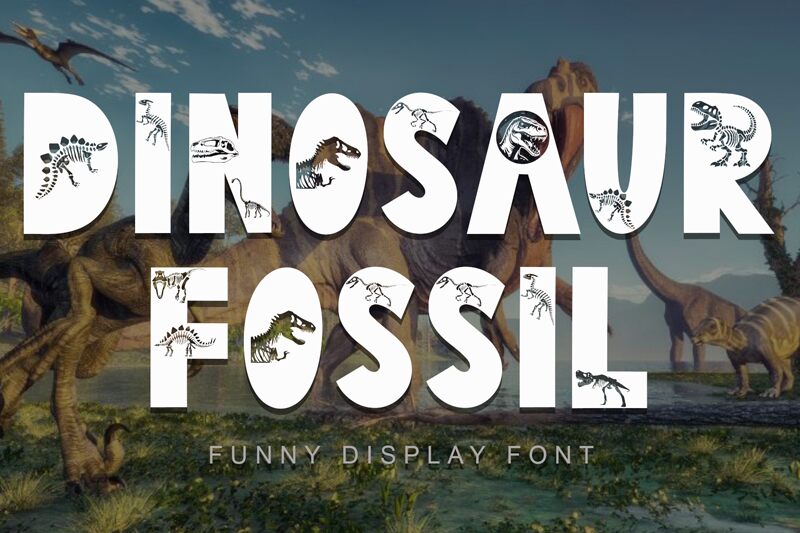
Dinosaur Fossil font is a delightful decorative typeface designed by Yoga Letter, bringing a playful and thematic prehistoric feel to your projects. This font draws inspiration from the texture and patterns of dinosaur fossils and bones, creating a unique and visual reading experience excellent for catching the viewer’s eye and sparking nostalgic feelings. The bold and blocky shapes of the letters are just some of the qualities that invite readers into an imaginary world in the past.
Explore the fun and enticing style of this font with logotypes for kids’ toy companies, printed and digital posters for events, online game interfaces, food packaging design, book covers, CDs for children’s music, street video games, translated comics, or YouTube videos thumbnail images. Use its dynamic appearance for extra flavor in birthday invitations, or design dinosaur-themed apparel for children.